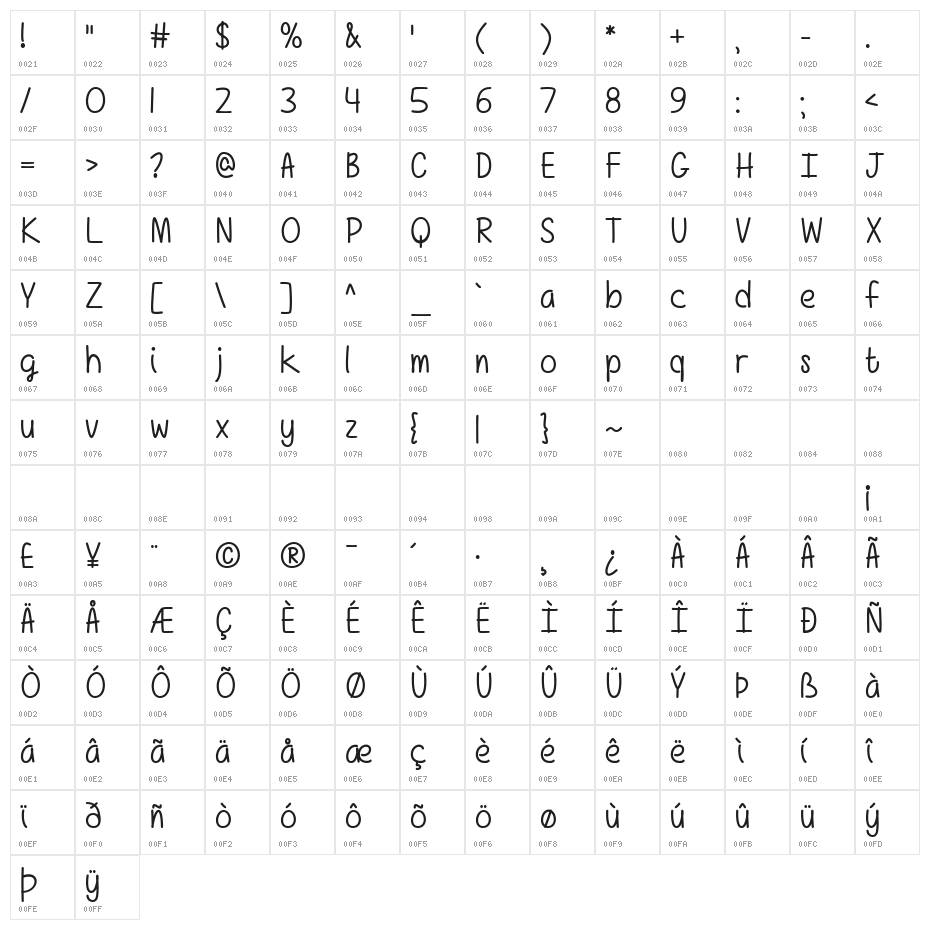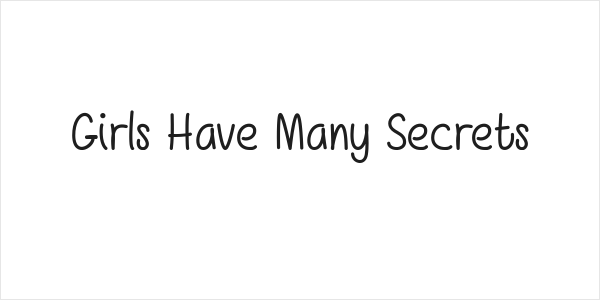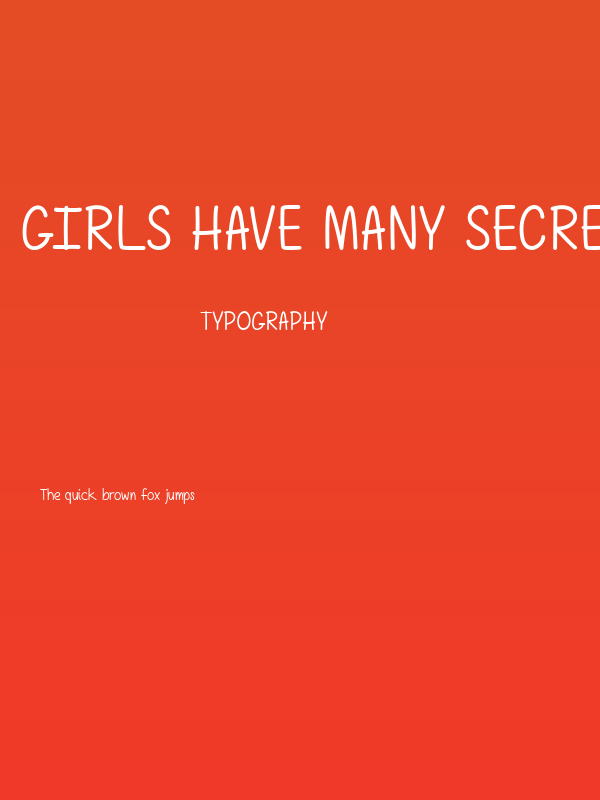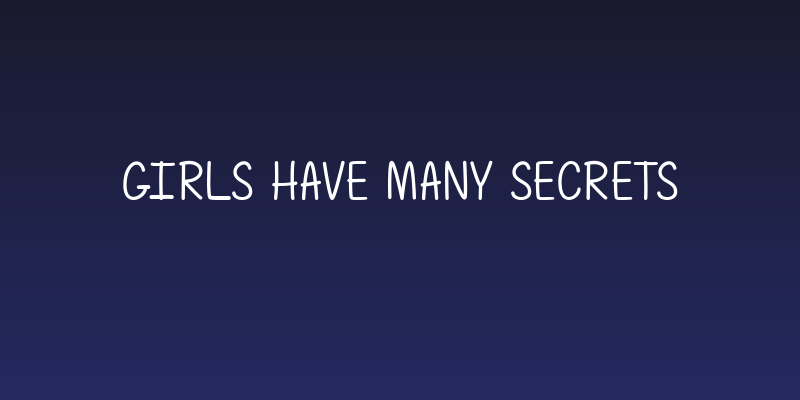
Girls Have Many Secrets Font
| Stil general | Casual, Playful |
| Caz de utilizare | Headlines, Informal text, Creative projects |
| Proiecte propuse | Ideal for children's books, greeting cards, playful branding, and informal invitations. |